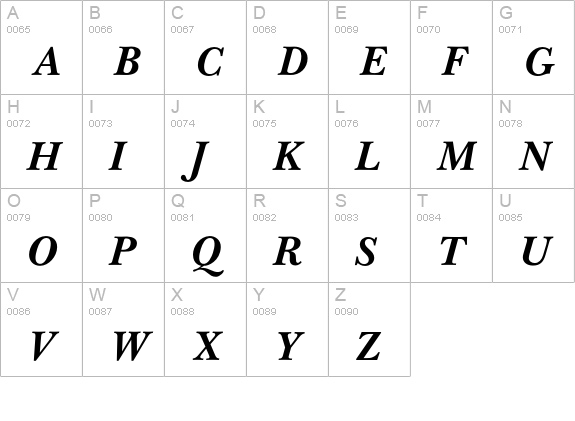
NewBaskervilleBoldItalic Font Details
NewBaskervilleBoldItalic is a stunning and elegant font that exudes sophistication and charm. With its bold and italic design, this typeface adds a touch of class to any project or design. The graceful curves and sharp angles of NewBaskervilleBoldItalic make it perfect for creating eye-catching headlines, logos, or any other text that demands attention. What makes NewBaskervilleBoldItalic even more appealing is that it is available for free download at FontsMarket.com. This means you can easily access this beautiful font and use it in your projects without any cost. Whether you're a designer looking to add a touch of elegance to your work or someone in need of a stylish font for personal use, NewBaskervilleBoldItalic is the perfect choice. Download it now and elevate your designs to the next level.